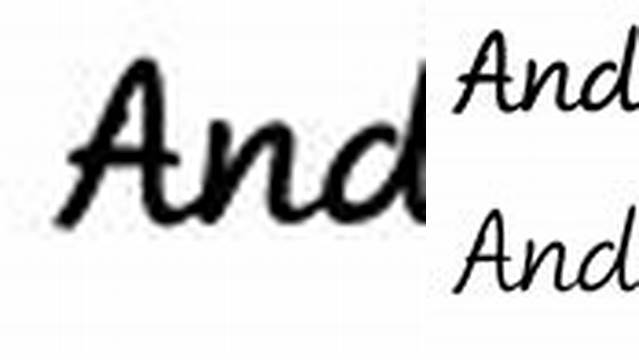
Andrea Handwriting II Print: Your Guide to Free Slant Bold Fonts!
Hey guys, are you looking to add a touch of personality and flair to your designs? Well, you're in luck! Today, we're diving deep into the world of Andrea Handwriting II Print, a fantastic font that's perfect for all sorts of projects. Plus, we'll explore how you can snag this amazing slant bold font for free download! Ready to get started? Let's jump right in! This font family is incredibly versatile, working wonders in a variety of contexts. Whether you're a seasoned designer or just starting out, Andrea Handwriting II Print is a fantastic choice to elevate your creative projects. Its distinct style is what makes it stand out from the crowd, ensuring your designs capture attention and leave a lasting impression. The use of this font can significantly enhance the visual communication of any project, making it more engaging and attractive for the audience. Its unique characteristics allow for creative freedom and the ability to make your work stand out from the crowd, which is especially useful in a saturated market. For those of you looking to boost your projects with a special touch, Andrea Handwriting II Print is a great solution. This is a great font for any project needing a personal touch! From invitations to websites, this font can transform your designs. Its bold slant offers a unique flair, making your text pop. Andrea Handwriting II Print is not just a font; it's a statement. It's about expressing your unique style through the visual language of typography. It's a tool to communicate your message effectively. When using Andrea Handwriting II Print, you're not just choosing a font; you're choosing a design element that contributes to the overall aesthetic of your project. This font’s legibility is a key factor, as it ensures that the message is conveyed clearly. Its versatility makes it suitable for both headers and body text, making it an incredibly valuable asset for designers. If you want to convey a sense of creativity, this font is a great choice. Its use can dramatically enhance the visual appeal of a project. With Andrea Handwriting II Print, you're investing in a design element that adds a unique character to your work. This font is a great choice for anyone looking to add a creative twist to their projects. If you are looking to create a sense of elegance and uniqueness in your projects, then this is a great font. It's a versatile font that fits various design needs and is well-suited for many different design projects. This font is an excellent choice to enhance your creativity and bring a unique look to your projects. It's perfect for creative projects. This font is an excellent choice. It is a testament to the power of typography in conveying emotion and style. The impact of a well-chosen font like Andrea Handwriting II Print is significant. It elevates the project's overall quality. By using this font, you're choosing a font that’s both aesthetically pleasing and highly functional. This font’s unique characteristics make it a great choice for a variety of applications. Whether you're creating a website or designing a poster, this font has the potential to enhance its visual appeal and make it more engaging. The font has a unique character which makes it stand out. Its distinct style can make your designs more memorable. If you are looking to enhance the visual appeal of your projects, then this font is a good option. Its use can improve the overall quality of your project. Andrea Handwriting II Print is about expressing your unique style through the visual language of typography. This font is a great choice for anyone looking to add a creative twist to their projects. If you are looking to create a sense of elegance and uniqueness in your projects, then this is a great font. It's a versatile font that fits various design needs and is well-suited for many different design projects. This font is an excellent choice to enhance your creativity and bring a unique look to your projects. It's perfect for creative projects. This font is an excellent choice. Its unique character which makes it stand out. Its distinct style can make your designs more memorable. By using this font, you're choosing a font that’s both aesthetically pleasing and highly functional.
What Makes Andrea Handwriting II Print Special?
So, what's the deal with Andrea Handwriting II Print? This font is all about that personal, handwritten vibe. It’s like your friendly neighborhood artist scribbled it down just for you! The slant adds a dynamic feel, giving your text a sense of movement and energy. And the bold version? Oh, it packs a punch! Perfect for grabbing attention and making sure your message is loud and clear. When creating designs with Andrea Handwriting II Print, you are choosing a font that reflects personality and uniqueness. The bold version of the font is also great to grab attention, making your message visible and effective. Its characteristics make it ideal for any project needing a personal touch. It is excellent for conveying creativity and style, and its use can bring a unique character to your projects. This font is a fantastic option if you want your projects to have a unique and appealing design. It offers a design that is sure to make your content stand out. Its versatility is one of its biggest strengths. The font can be used in many different contexts, making it a valuable tool. You will enhance your project by using this font. It's a great way to add a touch of creativity. Your projects can be made more engaging using this font. Its unique design will make sure that your content will stand out. By using Andrea Handwriting II Print, you're choosing a design element that adds a unique character to your work. This font is a great choice for anyone looking to add a creative twist to their projects. If you are looking to create a sense of elegance and uniqueness in your projects, then this is a great font. It's a versatile font that fits various design needs and is well-suited for many different design projects. It is a testament to the power of typography in conveying emotion and style. The impact of a well-chosen font like Andrea Handwriting II Print is significant. It elevates the project's overall quality. By using this font, you're choosing a font that’s both aesthetically pleasing and highly functional. This font’s unique characteristics make it a great choice for a variety of applications. This font has a unique character which makes it stand out. Its distinct style can make your designs more memorable. If you are looking to enhance the visual appeal of your projects, then this font is a good option. Its use can improve the overall quality of your project. If you're creating invitations or crafting a new website, Andrea Handwriting II Print has you covered. This versatility makes it a favorite among designers looking for a personal touch in their projects. The use of this font can significantly enhance the visual communication of any project, making it more engaging and attractive for the audience. It offers a design that is sure to make your content stand out. Its versatility is one of its biggest strengths. The font can be used in many different contexts, making it a valuable tool. This font is a fantastic option if you want your projects to have a unique and appealing design. The use of this font can significantly enhance the visual communication of any project, making it more engaging and attractive for the audience. Its unique characteristics allow for creative freedom and the ability to make your work stand out from the crowd, which is especially useful in a saturated market. This font is an excellent choice to enhance your creativity and bring a unique look to your projects. It's perfect for creative projects.
Where Can You Use It?
The beauty of Andrea Handwriting II Print is its versatility, guys! It's like the Swiss Army knife of fonts. Think about it:
- Invitations: Perfect for weddings, birthdays, or any special event where you want to add a personal touch.
- Websites: Use it for headers, quotes, or even body text to give your site a friendly, approachable feel.
- Social Media: Create eye-catching graphics and posts that stand out in the endless scroll.
- Logos: Add a unique, handcrafted feel to your brand's identity.
- Posters and Flyers: Make your message pop with the bold slant, ensuring it's noticed.
The possibilities are endless! Andrea Handwriting II Print is a game-changer for anyone looking to infuse a bit of personality into their designs. The slant and bold style can make your projects more memorable. Using this font can greatly improve your design work. If you’re looking for a way to add character to your projects, then this font is a good choice. This is a great font for any project needing a personal touch! This font’s legibility is a key factor, as it ensures that the message is conveyed clearly. Its versatility makes it suitable for both headers and body text, making it an incredibly valuable asset for designers. If you want to convey a sense of creativity, this font is a great choice. Its use can dramatically enhance the visual appeal of a project. This font is a great choice for anyone looking to add a creative twist to their projects. If you are looking to create a sense of elegance and uniqueness in your projects, then this is a great font. Its unique design will make sure that your content will stand out. By using Andrea Handwriting II Print, you're choosing a design element that adds a unique character to your work. This font is a great choice for anyone looking to add a creative twist to their projects. If you are looking to create a sense of elegance and uniqueness in your projects, then this is a great font. It's a versatile font that fits various design needs and is well-suited for many different design projects. This font is an excellent choice to enhance your creativity and bring a unique look to your projects. It's perfect for creative projects. This font is an excellent choice.